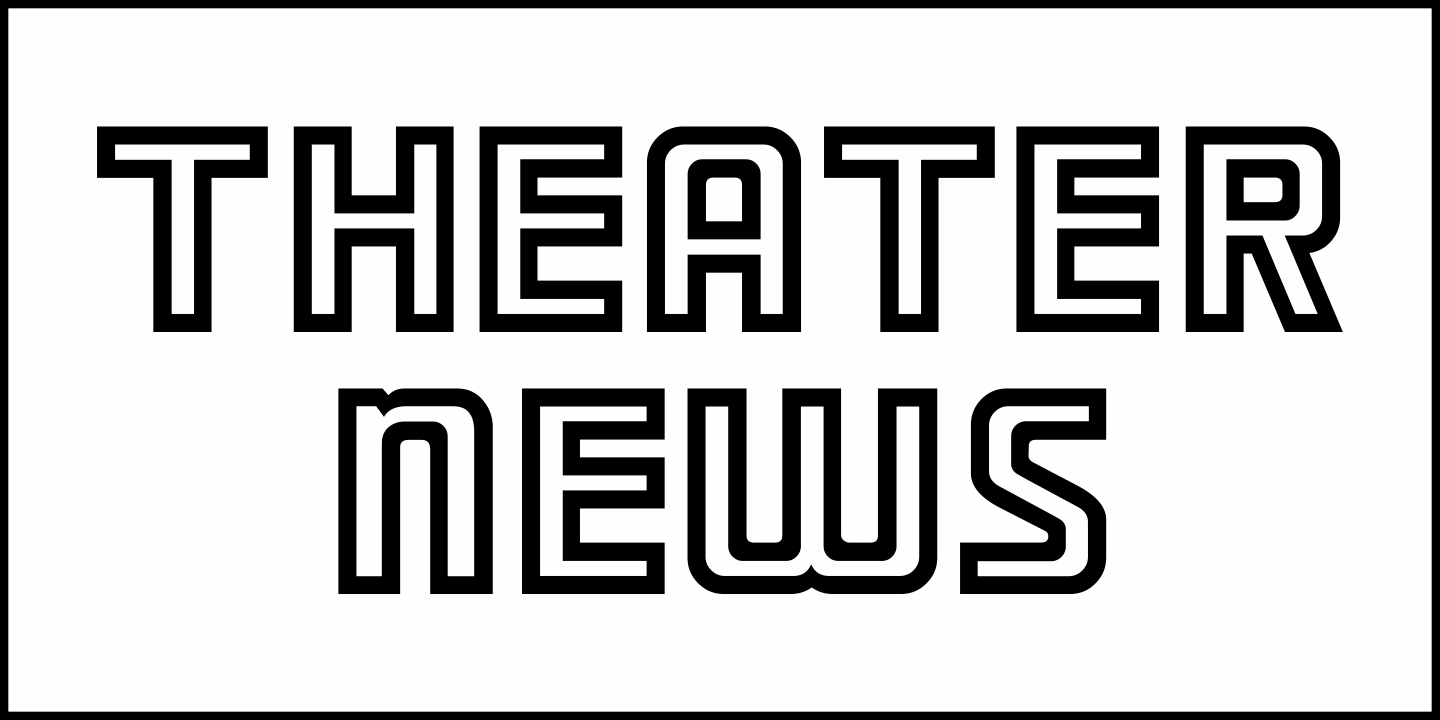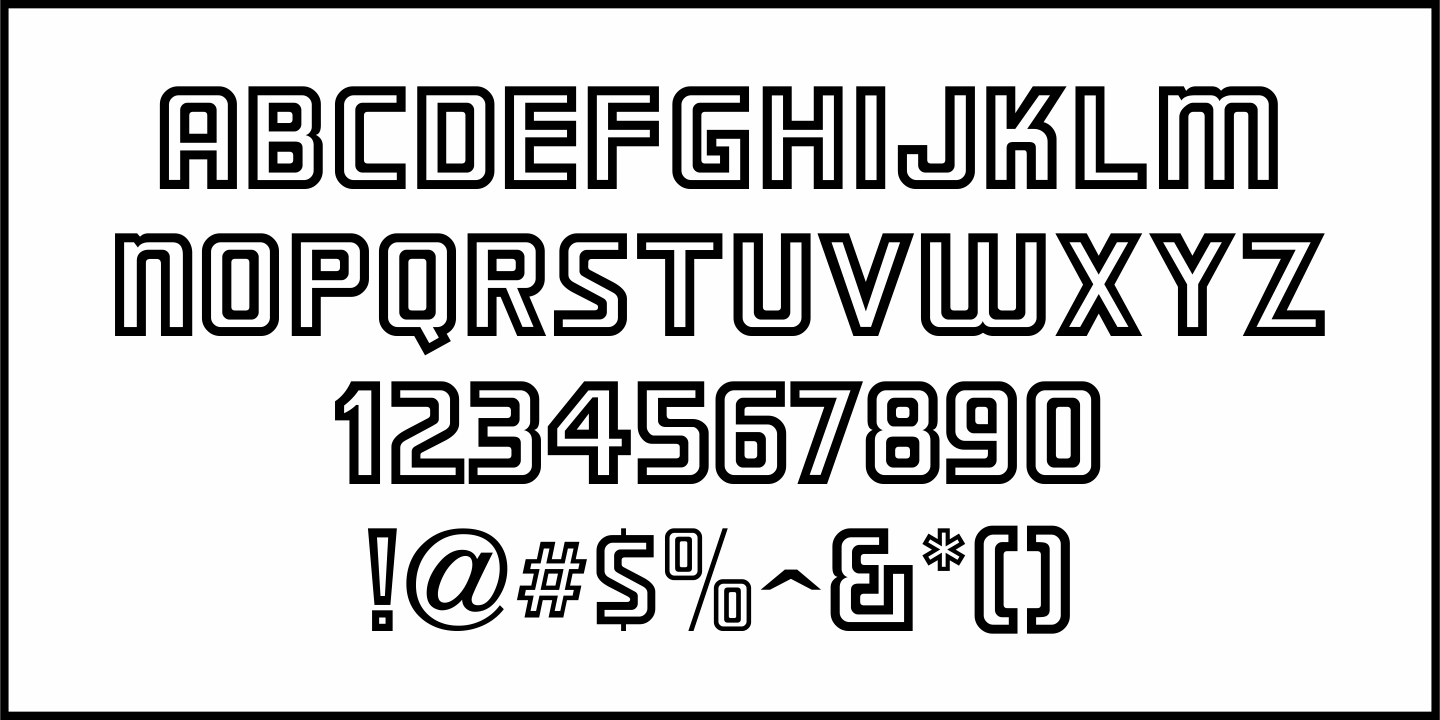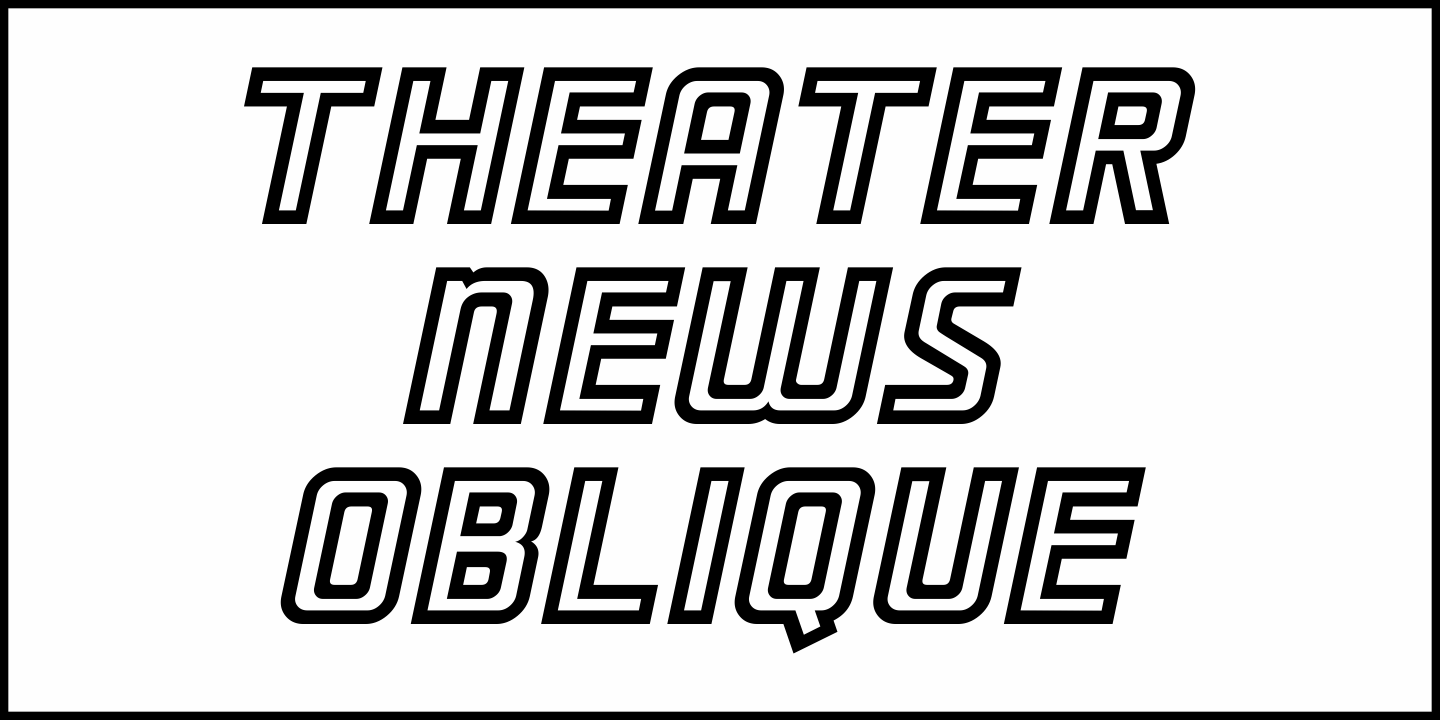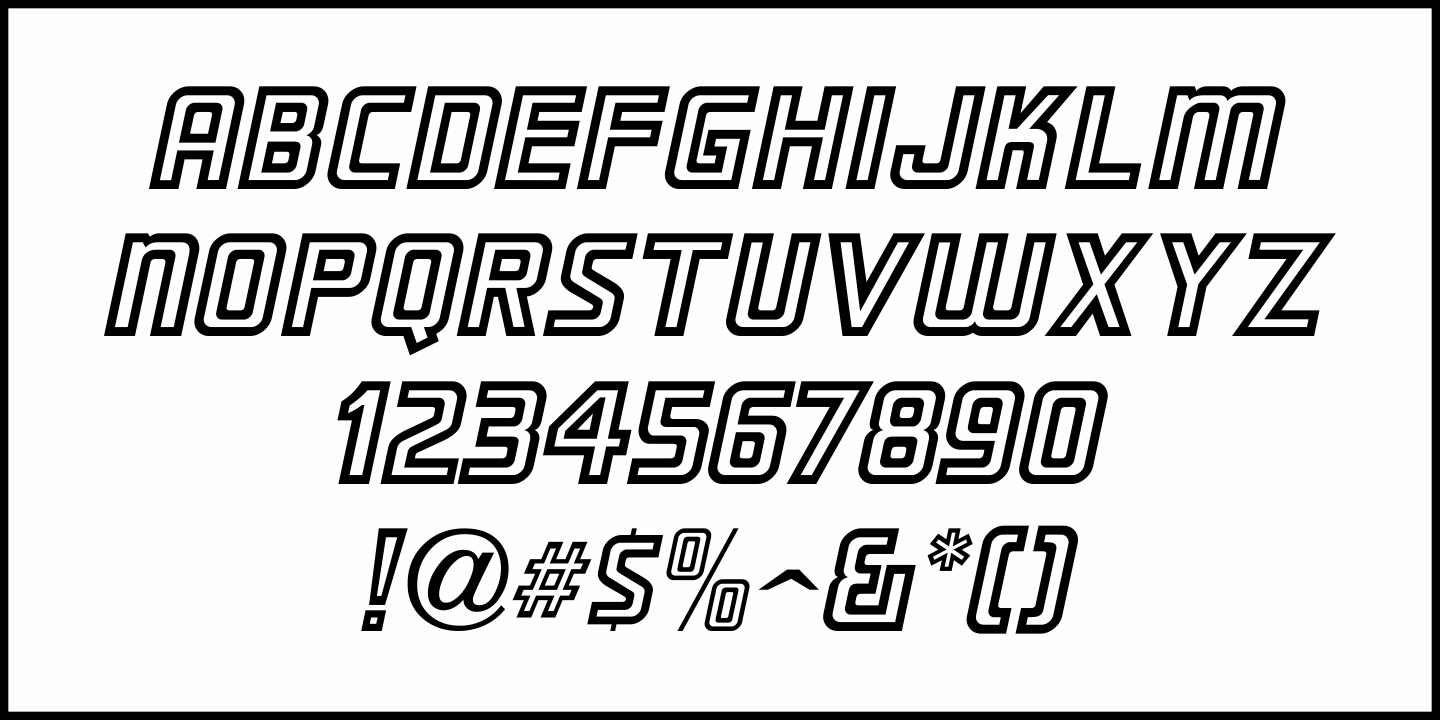
Theater News
During the height of Beatlemania in 1964, British Pathé filmed a series of theatrical newsreels of the Fab Four in New York, England, Australia and other locales.
Many of the subject titles were hand lettered in a bold outline type style that was squarish in shape with rounded corners and reminiscent of Art Deco lettering.
This is now available as Theater News JNL in both regular and oblique versions.